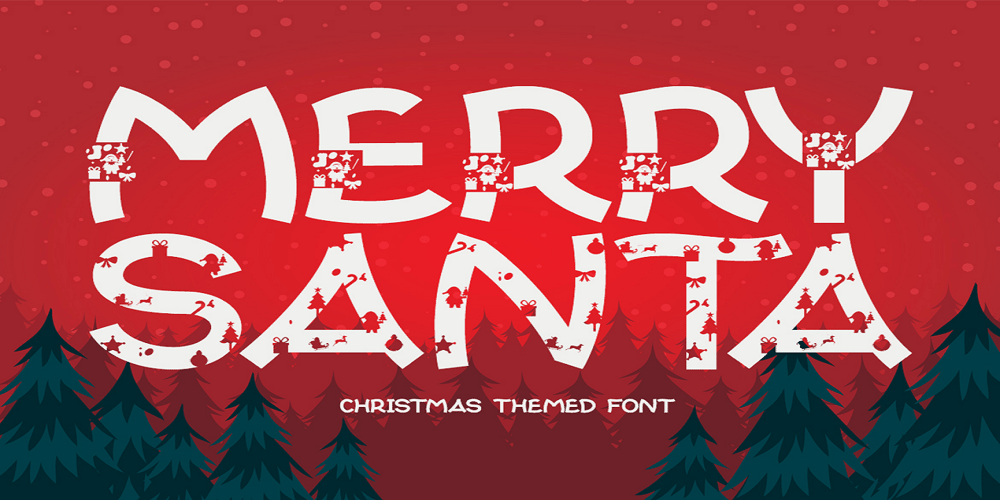
Merry santa
Merry santa font
Merry santa Font Family was designed by Saiful Anwar and published by Sealoung. Merry santa contains 1 styles and family package options. Merry Santa is a friendly and festive display font. Fall in love with its sweet and unique style and create amazing Holiday designs.